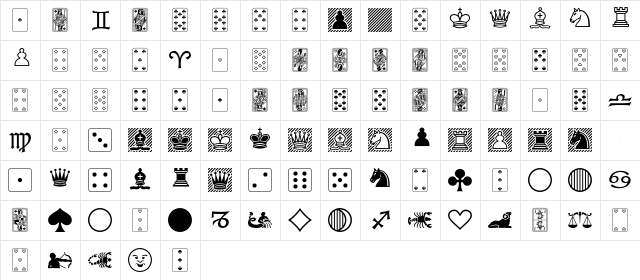
Commercial Pi Two BQ Regular Free Font
Commercial Pi Two BQ Regular
Design Context for Commercial Pi Two BQ
Commercial Pi Two BQ is a composed and adaptable typeface that performs quietly and consistently across a wide range of design contexts.